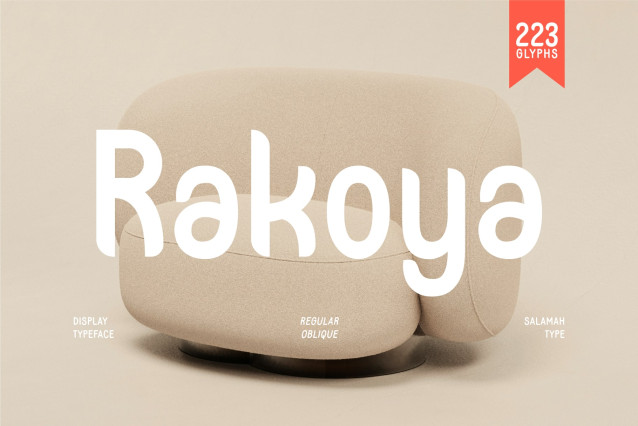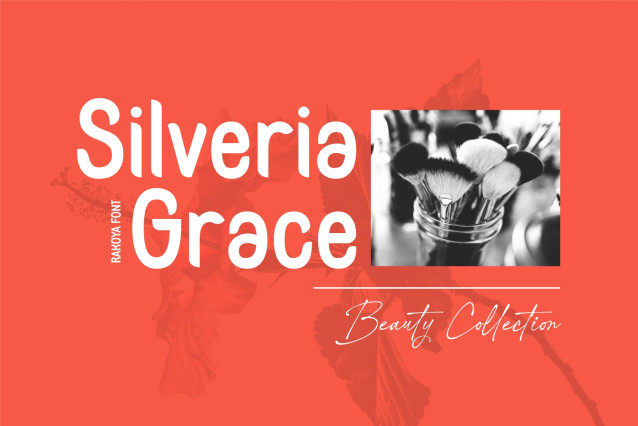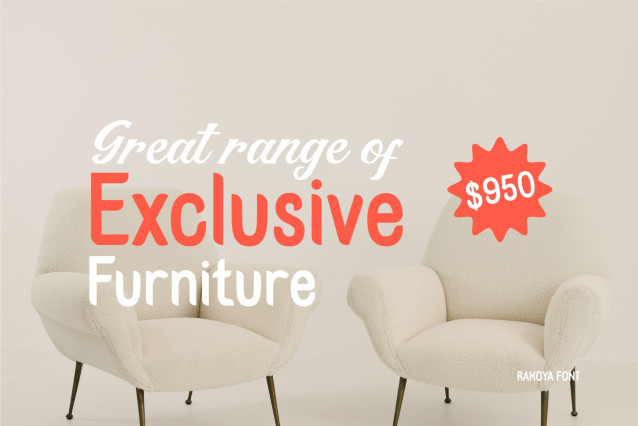
Rakoya – Elegant Font
Rakoya is a playful and modern display typeface designed to bring warmth and character to any creative project. Featuring smooth curves, rounded edges, and unique letterforms, Rakoya blends a friendly personality with a strong visual impact. This makes it an excellent choice for branding, logo design, social media content, quotes, packaging, advertising, and poster layouts.